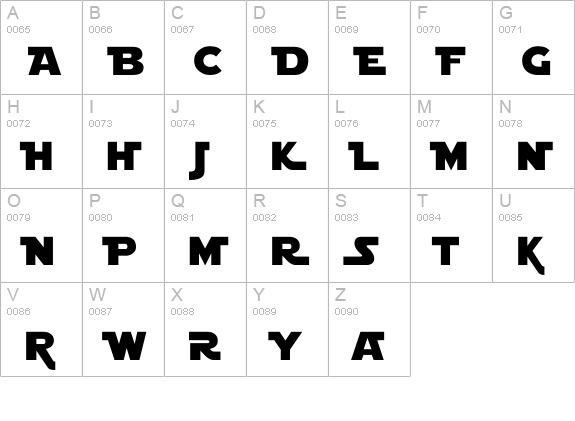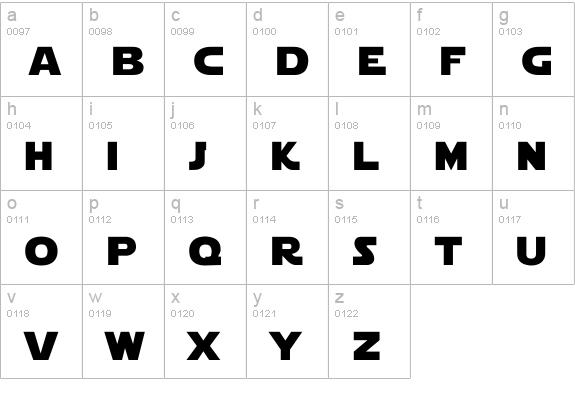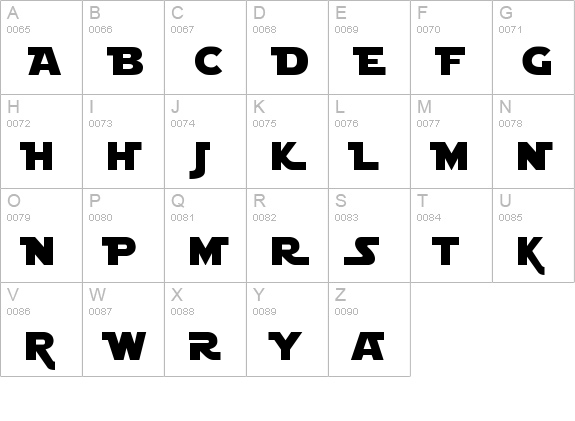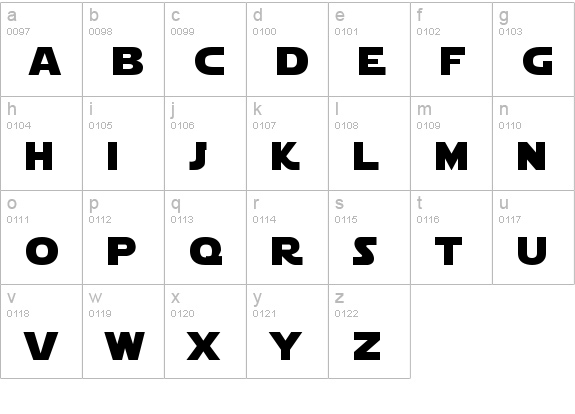
Star Jedi Rounded is a captivating font that combines the allure of the Star Wars universe with a rounded and friendly aesthetic. This font is perfect for those looking to add a touch of adventure and excitement to their designs. With its bold and distinct letterforms, Star Jedi Rounded is sure to make a lasting impression. One of the best things about Star Jedi Rounded is that it is completely free. Yes, you read that right! This incredible font can be downloaded for free at FontsMarket.com. Whether you are a professional designer or a casual enthusiast, this font is available to you at no cost. The versatility of Star Jedi Rounded is another reason why it stands out. It can be used for a wide range of design projects, from movie posters to t-shirts, logos to invitations, and everything in between. Its rounded edges give it a softer and more approachable look, making it suitable for a variety of design styles. With Star Jedi Rounded, you can unleash your creativity and transport your audience to a galaxy far, far away. So why wait? Head over to FontsMarket.com and download this amazing font for free. It's time to let your designs shine with the power of Star Jedi Rounded. May the font be with you!